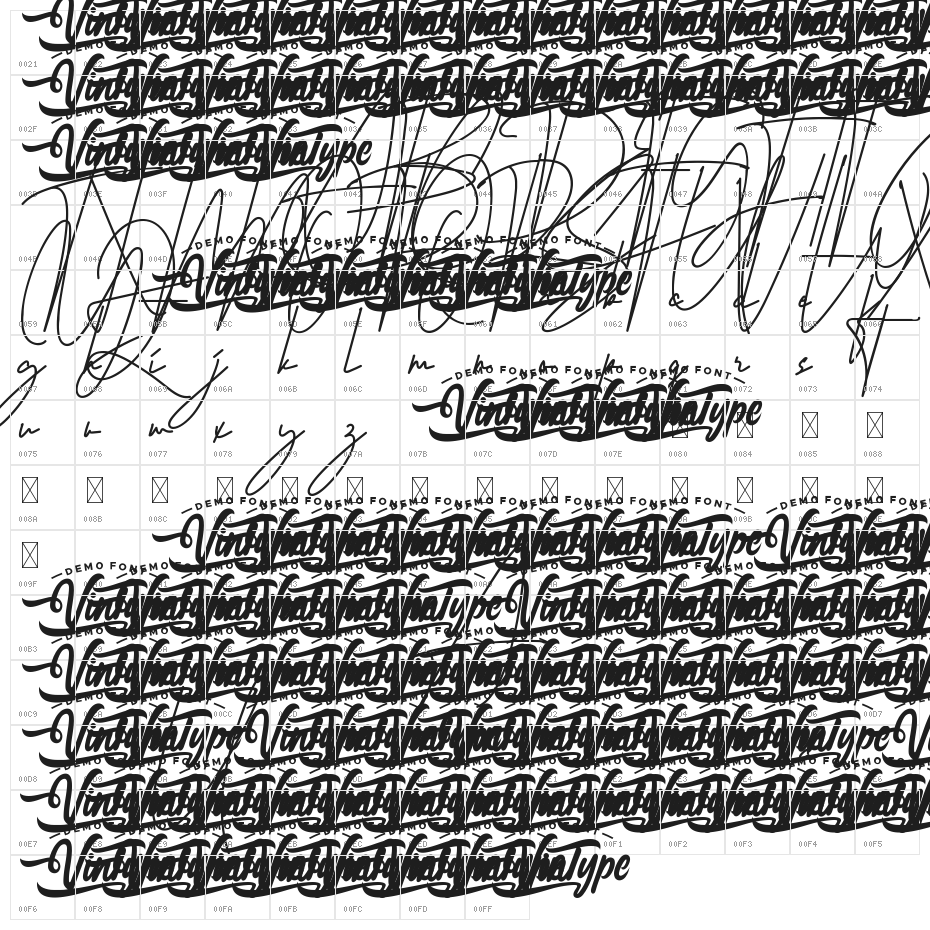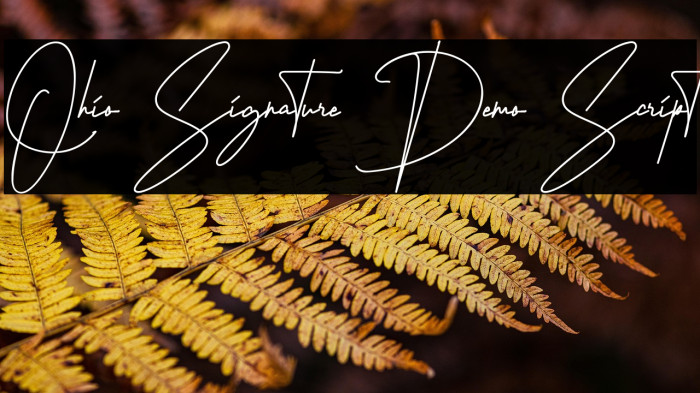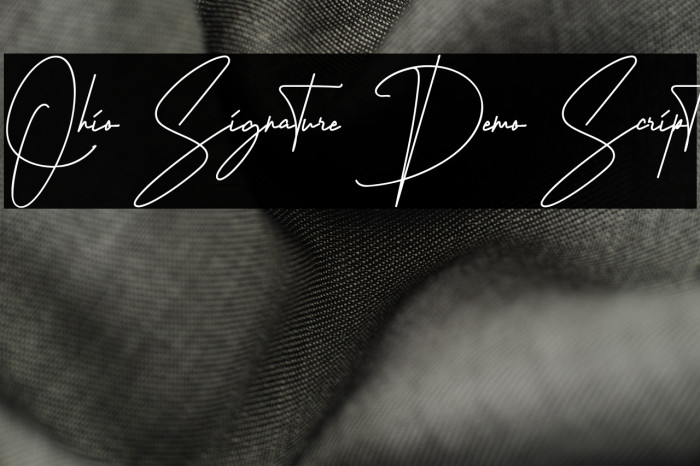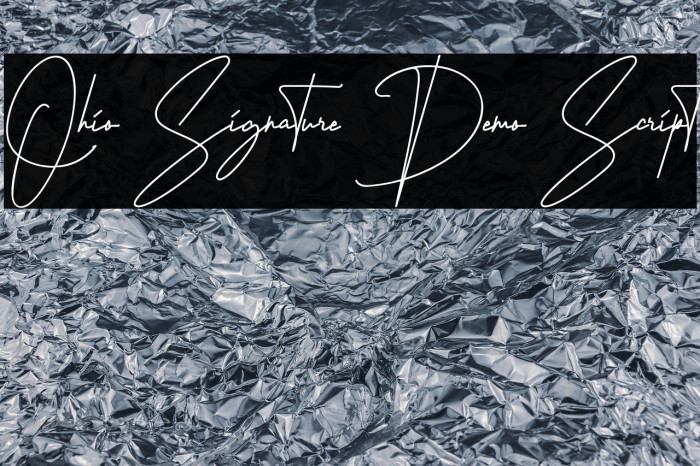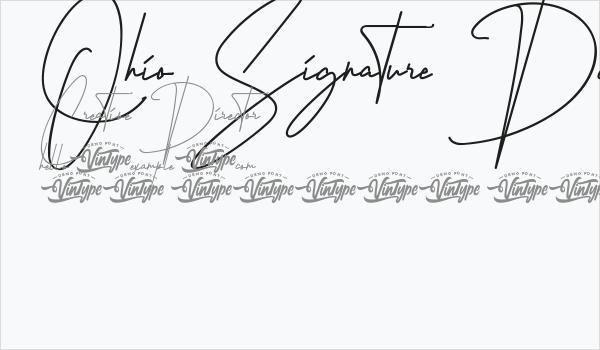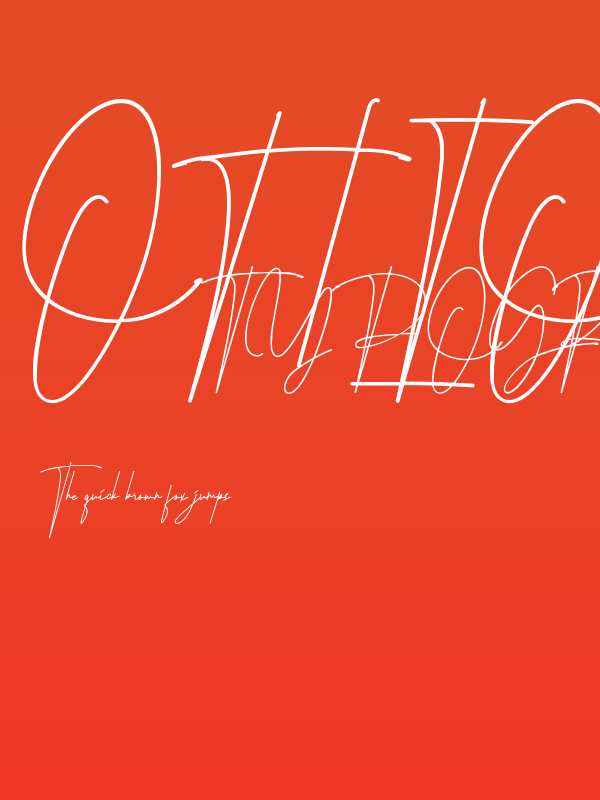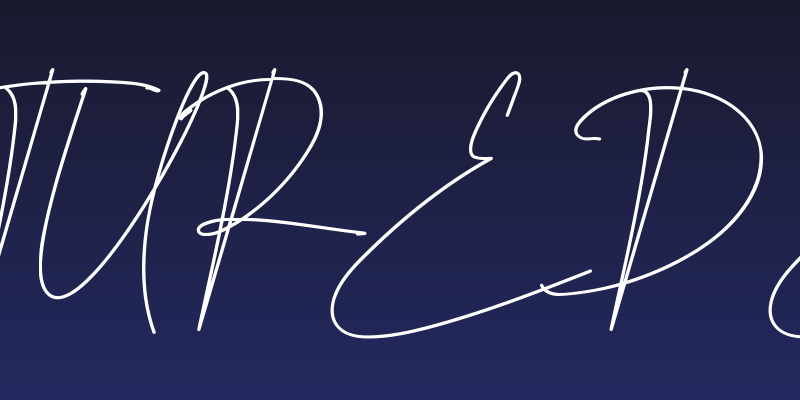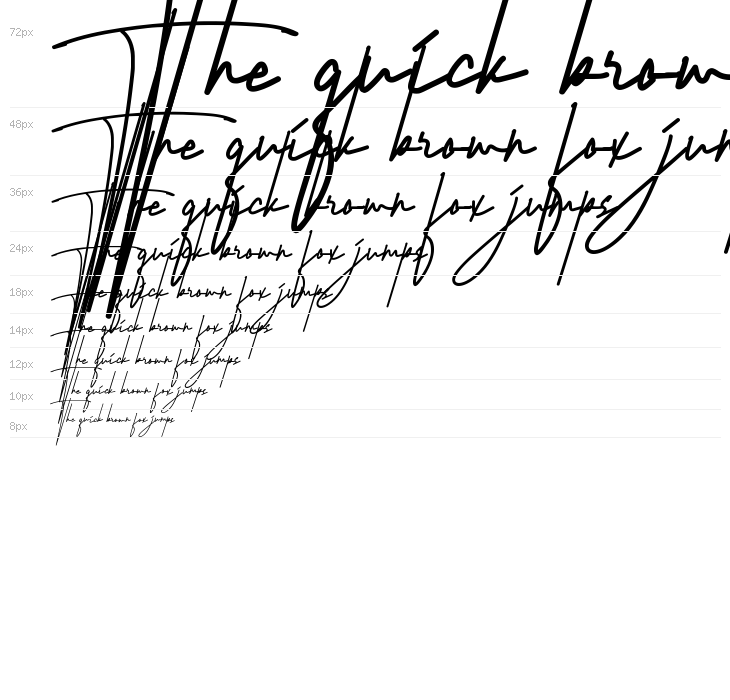
Ohio Signature Demo Script Font
Ohio Signature Demo Script Description
A flowing, cursive script font with a handwritten, signature-like appearance. The strokes are fluid and connected, with a natural variation in thickness and a casual, elegant feel. Uppercase letters are tall and narrow, while lowercase letters are more rounded and dynamic.
Overall StyleModern, Decorative, Handwritten
Use CaseLogos, Signatures, Invitations, Branding
Proposed ProjectsPersonal branding, logos, invitations, social media graphics, signatures, greeting cards.